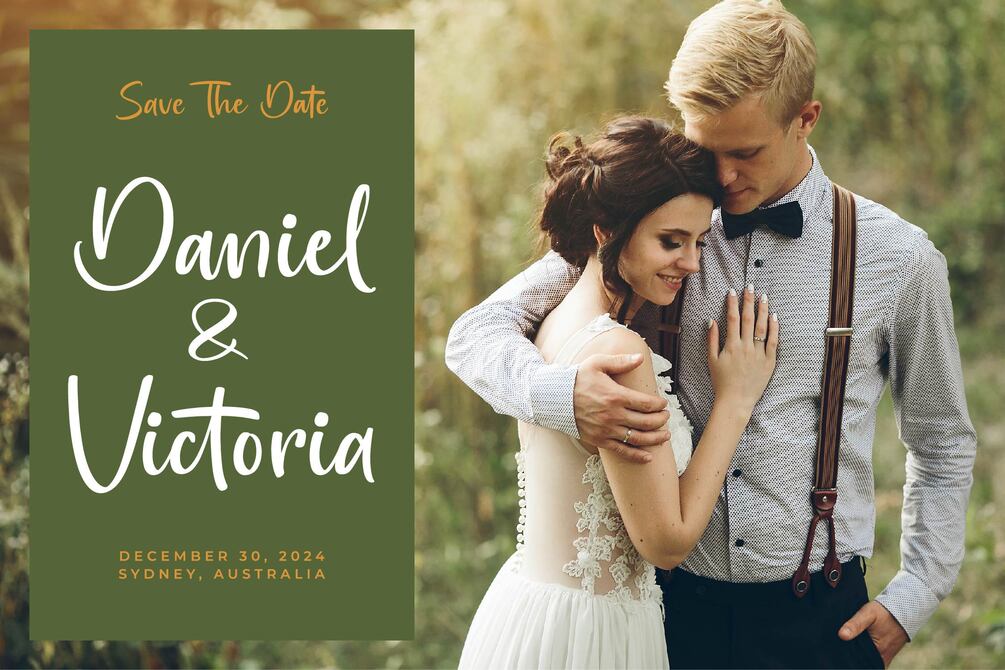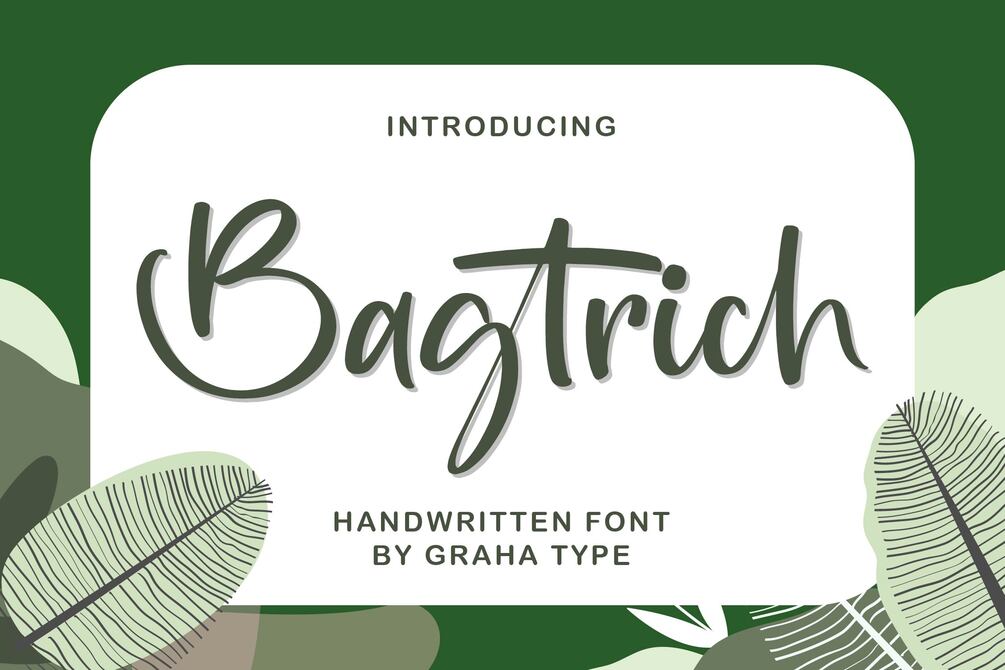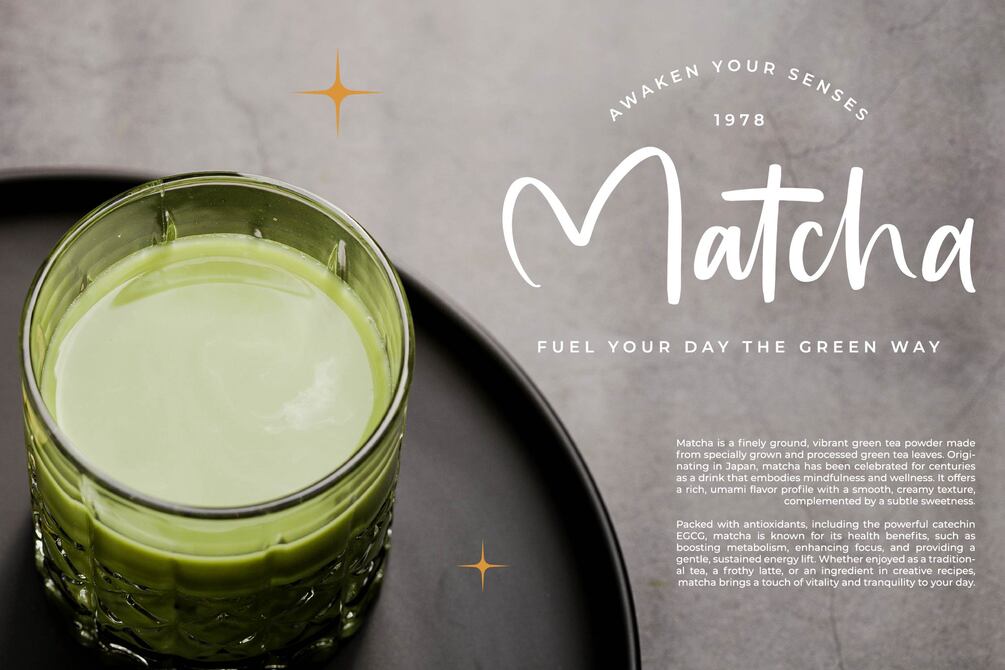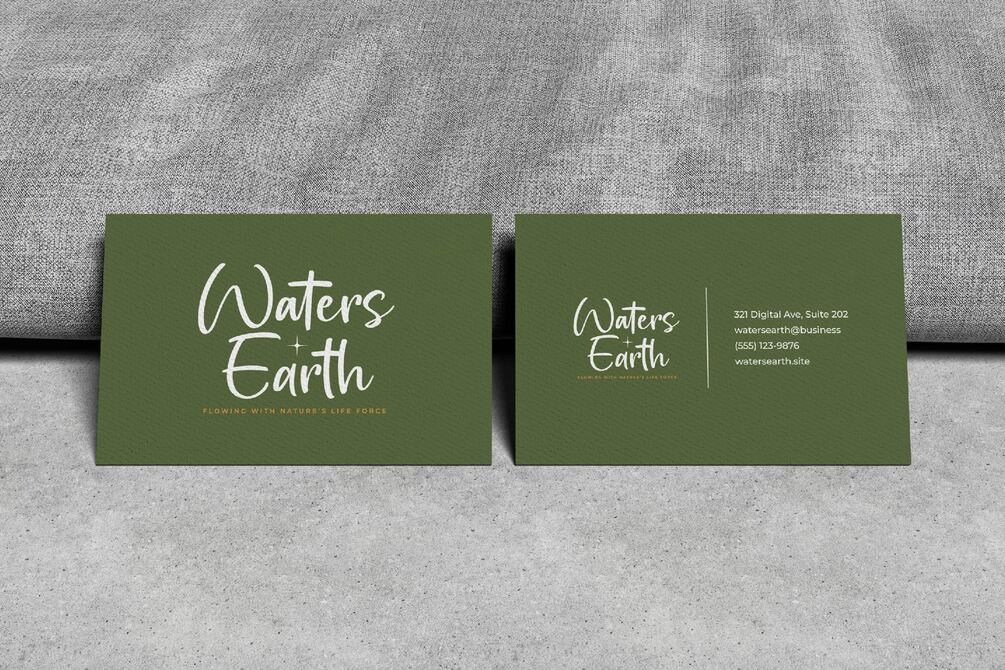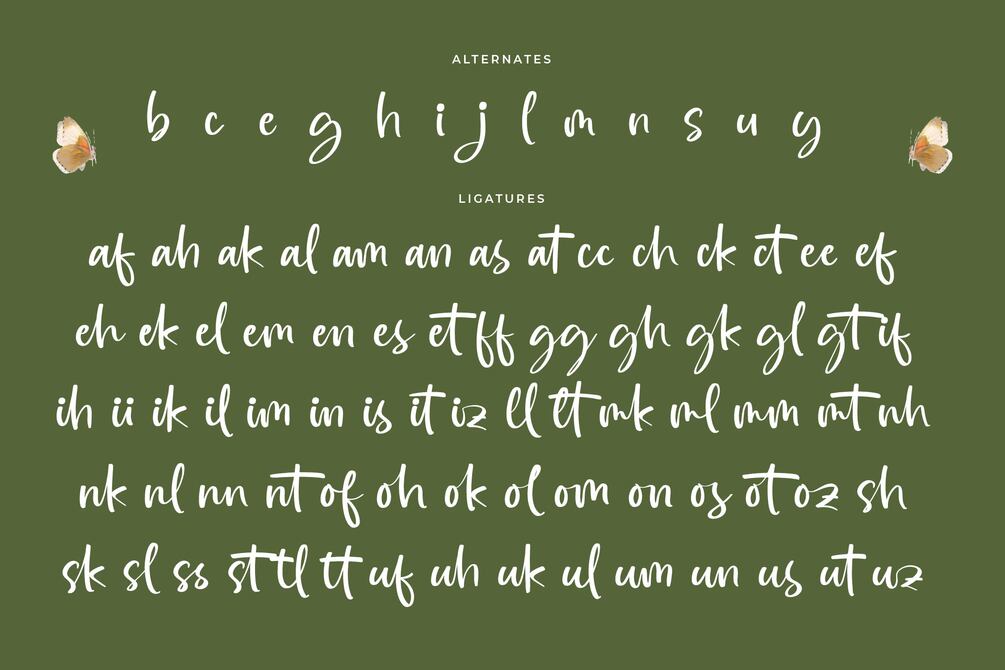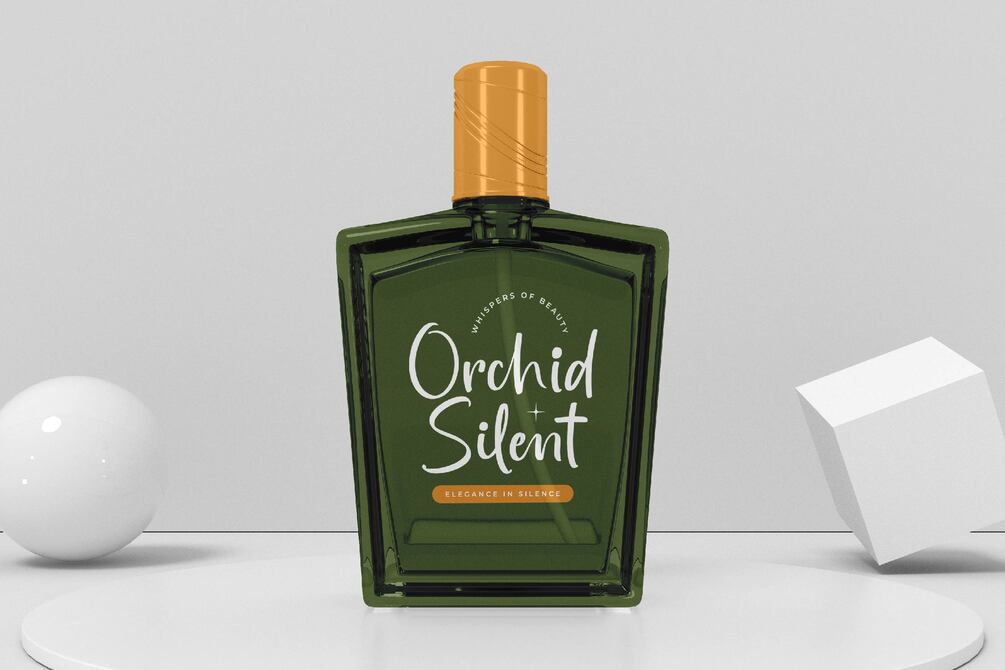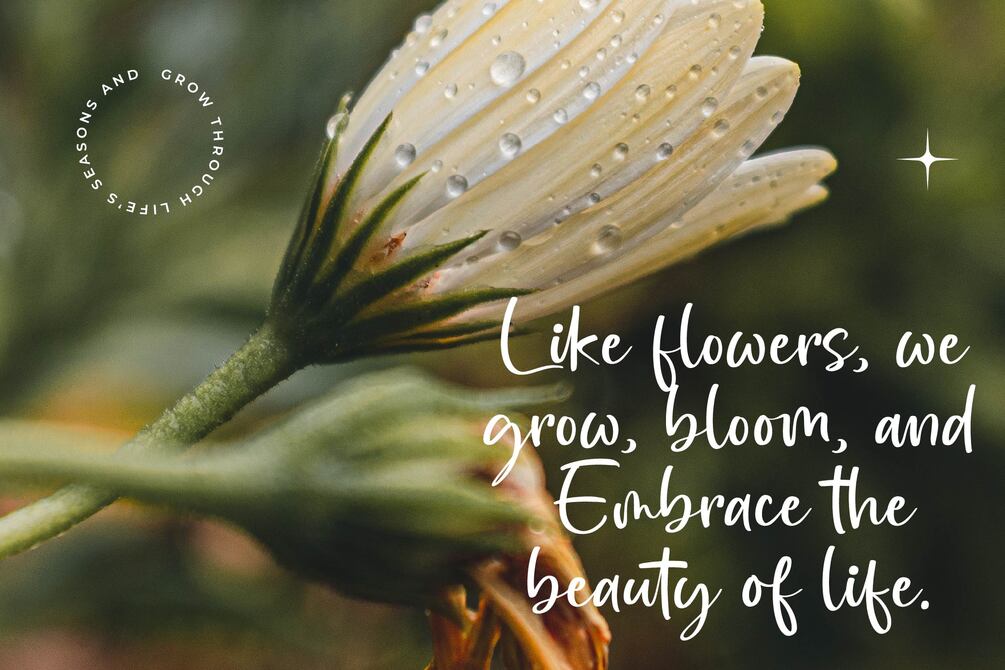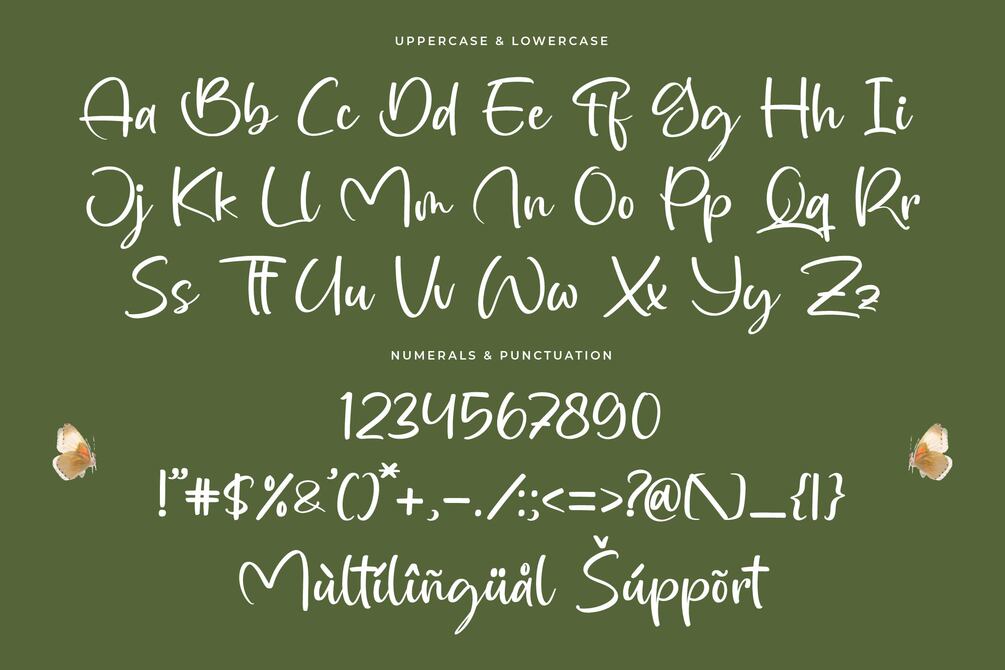
Bagtrich - Handwritten Font
Bagtrich is a modern, handwritten style font that exudes elegance and sophistication with its fluid, natural strokes. Perfect for logotypes, branding, invitations, apparel, and various design needs, Bagtrich offers a unique, personalized touch to any project. Its versatile yet distinctive style balances contemporary flair with the warmth of hand-drawn lettering, making it ideal for a wide range of creative applications. Whether you're designing a logo, crafting an invitation, or creating stylish apparel graphics, Bagtrich delivers a polished and approachable look that stands out effortlessly.
Alternates and Ligatures
Multilingual Support